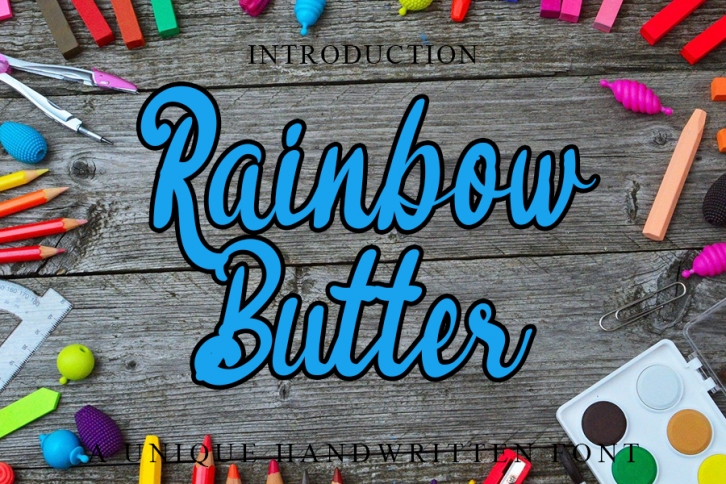
Rainbow Butter is a dainty and fun handwritten font. With a nostalgic feel and an elegant style, this typeface is perfect for book titles, romantic movies, cover magazines, and more!